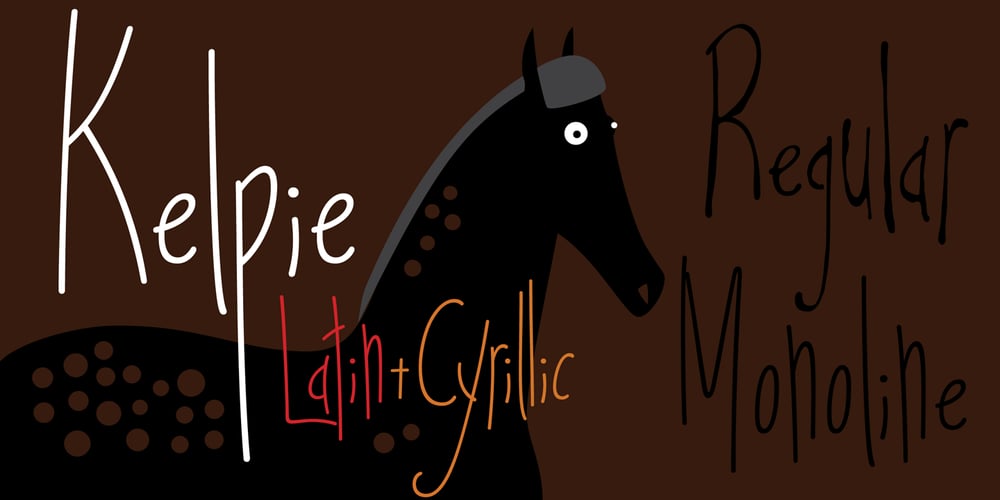
Kelpie Font Family was designed by Olga Umpeleva and published by Olga Umpeleva. Kelpie contains 2 styles and family package options. Kelpie is a hand-drawn typeface based on informal writing and includes 2 styles: regular and monoline. It is a full of energy font with the irregular look and slightly scrawled letterforms with long ascenders and descenders. Kelpie can look casual, open and friendly or even add an eerie undertone to your text. It is recommended to use for display titles and small amount of text, words or short phrases.